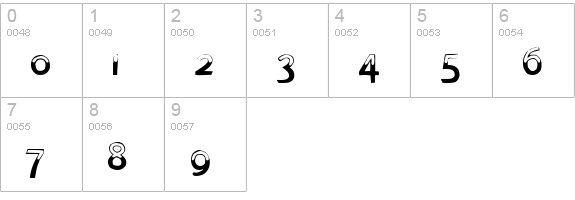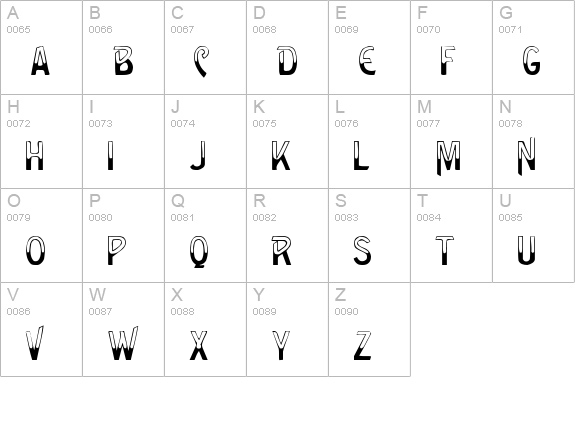
Leakin Display Caps SSi Font Details
Leakin Display Caps SSi is a remarkable font that exudes elegance and sophistication. With its bold and captivating letterforms, this font is guaranteed to make a strong statement in any design project. The clean lines and sharp edges of Leakin Display Caps SSi give it a modern yet timeless appeal, making it perfect for both print and digital applications. This font is not just visually striking, but it also offers a level of versatility that is hard to find. Whether you're designing a logo, a headline, or a poster, Leakin Display Caps SSi will effortlessly adapt to your creative vision. Its strong presence on the page commands attention, effectively capturing the essence of your message. One of the best aspects of Leakin Display Caps SSi is that it is free! Yes, you read that right. This exceptional font is freely available to download at FontsMarket.com. With just a few clicks, you can have access to this incredible typeface and elevate your designs to new heights. So why wait? Don't miss out on the opportunity to enhance your projects with Leakin Display Caps SSi. Download it for free today at FontsMarket.com and discover the endless possibilities that this font has to offer. Let your creativity flow and watch as your designs come to life with the power of Leakin Display Caps SSi.